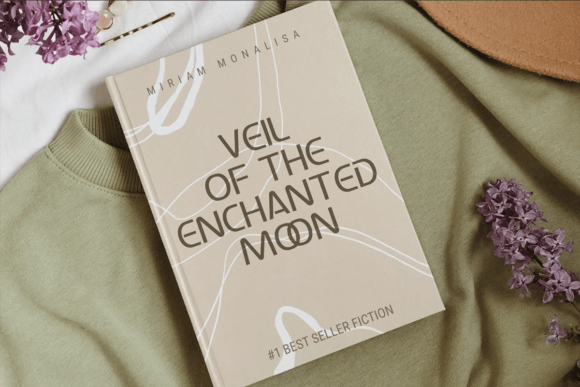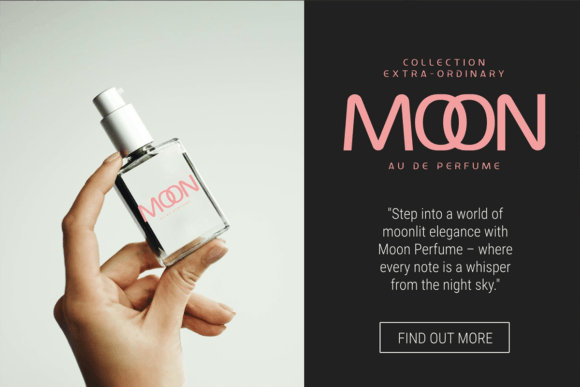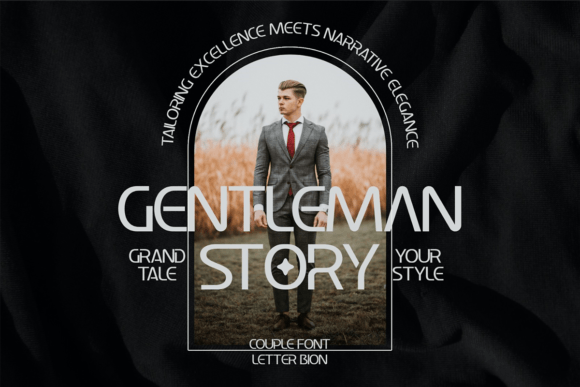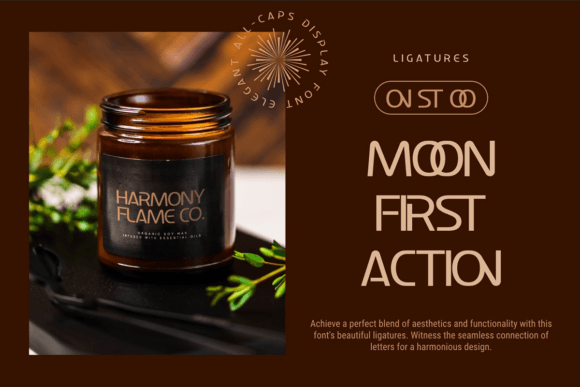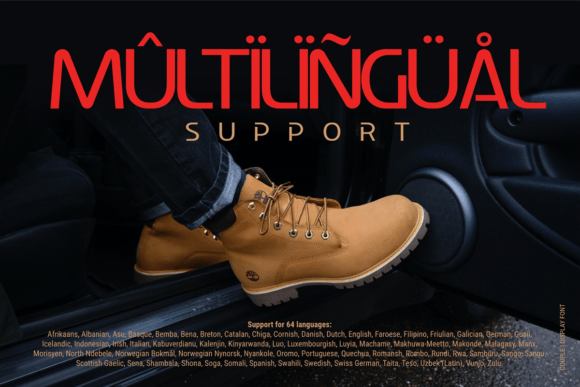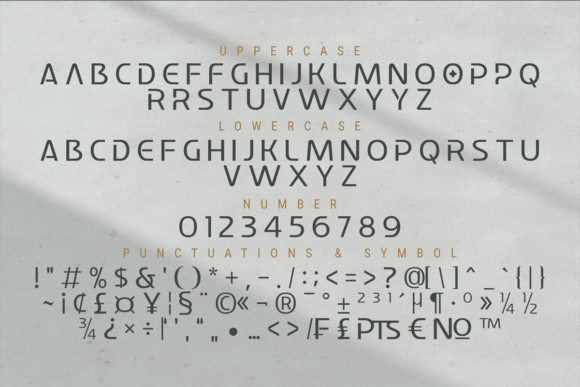
Introducing Couple Font: The Epitome of Elegance and Modernity
In the realm of typography, a well-crafted font can elevate a design project from ordinary to extraordinary. For designers and crafters seeking a typeface that embodies both elegance and modernity, Couple Font is an exceptional choice. This stunning sans serif font is meticulously designed to bring a minimalist touch to a wide range of design applications, including branding, posters, invitations, logos, and more.
The Essence of Couple Font
Couple Font is characterized by its clean lines and simple appearance, making it an ideal choice for designers who appreciate a sleek yet characterful aesthetic. The font’s minimalist design ensures that it remains versatile and highly legible, even at smaller sizes. This versatility is crucial for designers who work on various projects, from digital platforms to print materials.
Key Features of Couple Sans Serif Font
- Elegant and Modern Design: Couple Font boasts an elegant and modern design that instantly elevates the visual appeal of any project. Its contemporary look makes it perfect for designers who aim to create a lasting impression.
- Clean Lines and Simple Appearance: The font’s clean lines and simple appearance contribute to its minimalist aesthetic. This simplicity ensures that the font complements a wide range of design elements without overpowering them.
- High Legibility: One of the standout features of Couple Font is its high legibility. The carefully crafted characters ensure that the text remains clear and readable, even in smaller sizes or when used for body text.
- Versatility: Couple Font is incredibly versatile, making it suitable for a myriad of design applications. Whether you’re working on a logo, poster, invitation, or branding materials, this font adapts seamlessly to different contexts.
Applications of Couple Font
The versatility of Couple Font makes it an excellent choice for various design projects. Here are some of the key applications where this font truly shines:
- Branding: Create a lasting impression with Couple Font by incorporating it into your brand’s visual identity. Its elegant and modern design ensures that your brand stands out in a crowded marketplace.
- Posters: Design eye-catching posters that capture the audience’s attention with Couple Font. Its clean lines and simple appearance make it perfect for creating visually appealing posters for events, promotions, or informational purposes.
- Invitations: Add a touch of sophistication to your invitations with Couple Font. Whether it’s a wedding invitation, birthday party, or corporate event, this font lends an air of elegance to your designs.
- Logos: Craft memorable logos that embody your brand’s values and personality with Couple Font. Its modern and sleek design ensures that your logo stands out and remains recognizable.
Why Choose Couple Font?
In a world where typography plays a crucial role in design, Couple Font stands out as an exceptional choice for designers and crafters. Here are some compelling reasons to choose Couple Font for your next project:
- Unique Aesthetic: Couple Font offers a unique aesthetic that combines elegance and modernity. Its minimalist design ensures that your designs stand out without appearing cluttered or overly complex.
- Time-Saving: With Couple Font, you can significantly reduce the time spent on design. Its versatility and legibility mean that you can use it across various projects, saving you time and effort in the long run.
- Professionalism: The professional look of Couple Font makes it an excellent choice for designers who aim to deliver high-quality work. Its clean lines and simple appearance contribute to a polished and refined aesthetic.
Couple Font is a remarkable typeface that brings a perfect blend of elegance and modernity to various design projects. Its clean lines, simple appearance, and high legibility make it an excellent choice for designers and crafters seeking a versatile and professional font. Whether you’re working on branding, posters, invitations, logos, or more, Couple Font is sure to elevate your designs and leave a lasting impression.
Discover the power of Couple Font and transform your designs with its sleek and characterful aesthetic. Experience the difference that a well-crafted typeface can make in your work.